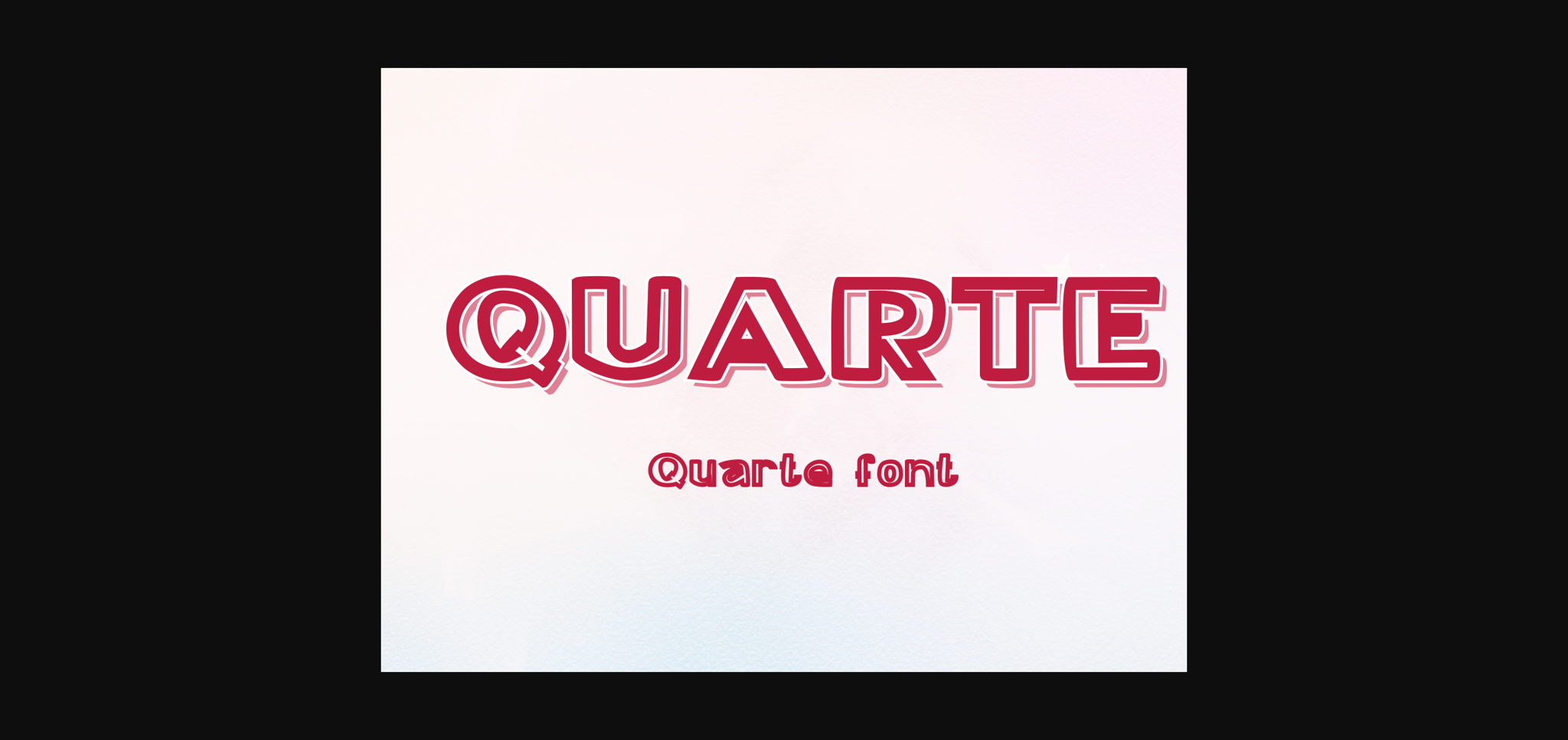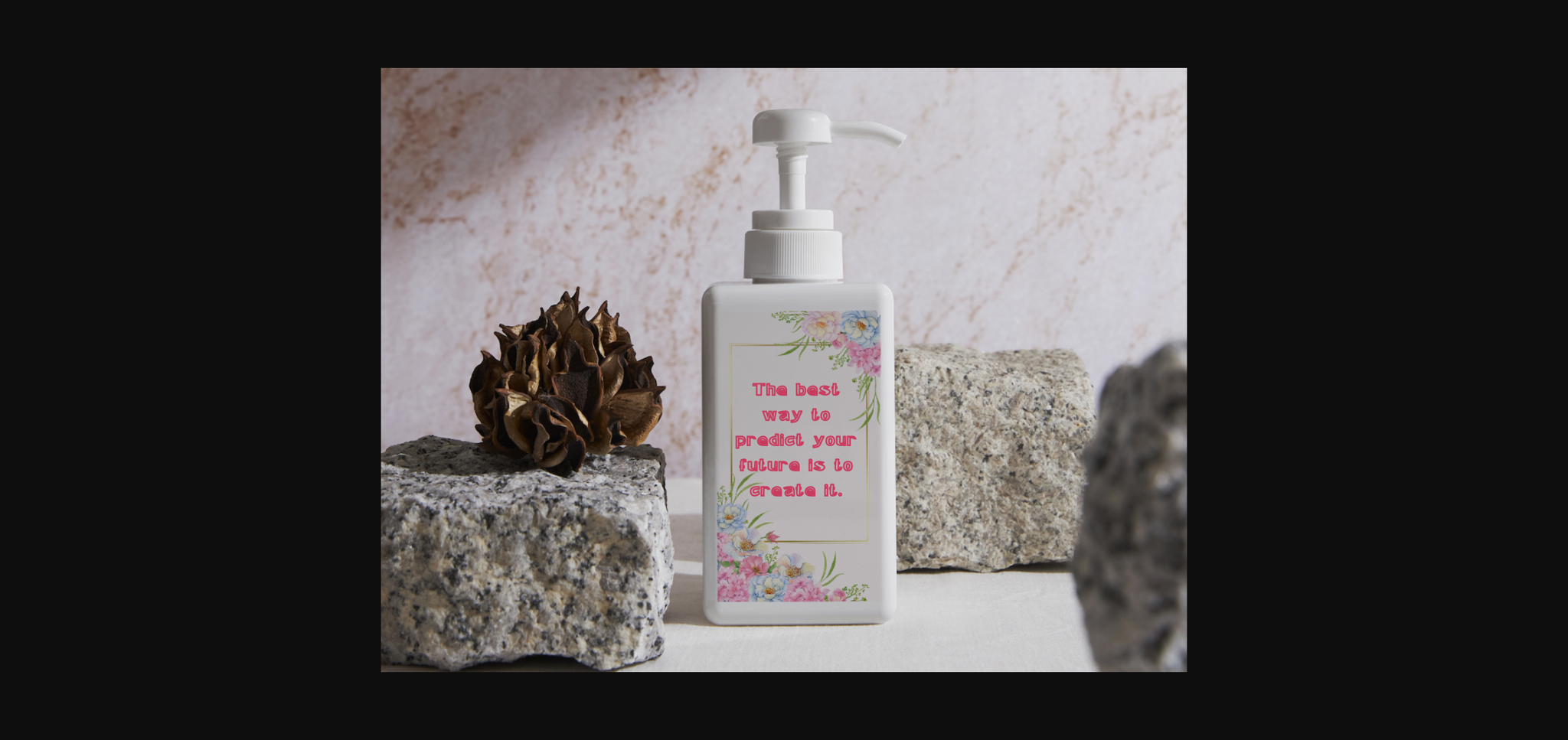
About Quarte Font
Quarte is a unique and interesting sans serif font. A little bit quirky, this font looks incredibly adept on a wide variety of contexts!